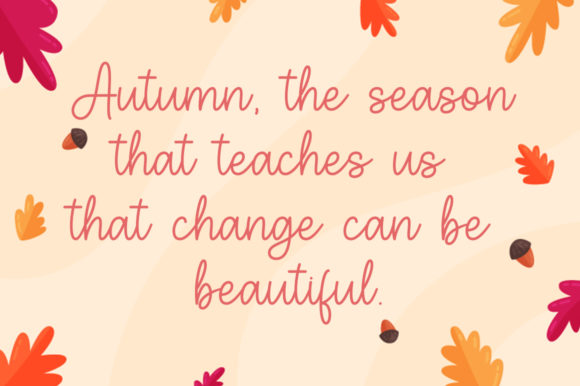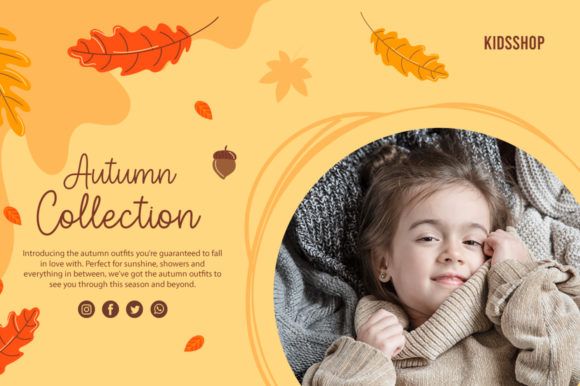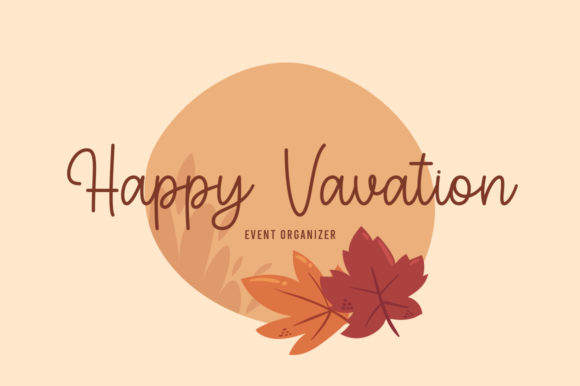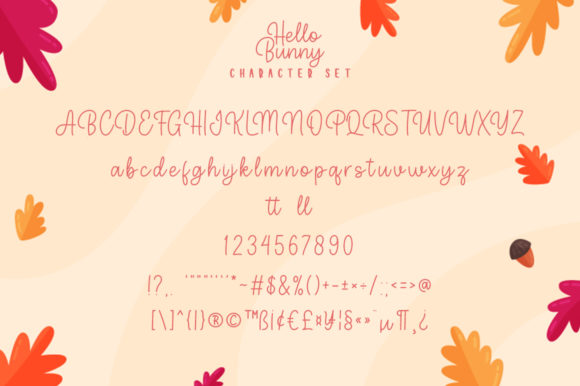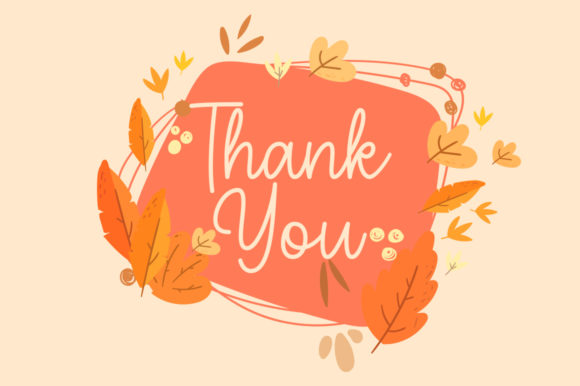
Hello Bunny Font: The Sweetest Handwritten Font for Your Creative Projects
Are you a designer, crafter, or DIY enthusiast looking for a font that can add a touch of sweetness and elegance to your projects? Look no further than the Hello Bunny font! This beautiful handwritten font is designed to capture the hearts of creatives and take their work to the next level. In this article, we’ll dive into the world of Hello Bunny font, exploring its features, benefits, and uses.
A Classy Calligraphic Influence with a Modern Twist
Hello Bunny is a masterfully designed font that combines the best of calligraphic influences with a contemporary and fresh feel. Its sweet, handwritten style makes it perfect for a wide range of creative projects, from greeting cards and invitations to branding and packaging. The font’s classy and elegant vibe ensures that it will add a touch of sophistication to any design, while its modern twist keeps it feeling fresh and current.
Key Features of Hello Bunny Font
• Handwritten style: Hello Bunny is a beautiful, handwritten font that adds a personal touch to any project.
• Classy calligraphic influences: The font’s calligraphic roots give it an elegant and sophisticated feel.
• Contemporary and fresh: Hello Bunny’s modern twist ensures that it feels current and on-trend.
• Versatile: This font is perfect for a wide range of creative projects, from digital designs to print materials.
Why Fall in Love with Hello Bunny Font?
So, why should you fall in love with Hello Bunny font? Here are just a few reasons:
• Easy to read: Despite its elegant and cursive style, Hello Bunny font is surprisingly easy to read, making it perfect for body text and headlines.
• Highly versatile: This font can be used for a wide range of projects, from feminine and playful designs to more formal and elegant ones.
• Unique and distinctive: Hello Bunny font has a unique and distinctive style that will set your designs apart from the crowd.
Using Hello Bunny Font in Your Creative Projects
So, how can you use Hello Bunny font in your creative projects? Here are a few ideas to get you started:
• Greeting cards and invitations: Add a touch of elegance and sophistication to your greeting cards and invitations with Hello Bunny font.
• Branding and packaging: Use Hello Bunny font to create beautiful and eye-catching branding and packaging designs.
• Digital designs: Hello Bunny font is perfect for digital designs, including social media graphics, blog posts, and website headers.
• Crafting and DIY projects: Add a personal touch to your crafting and DIY projects, such as handmade cards, gift tags, and journal pages.
Tips and Tricks for Getting the Most Out of Hello Bunny Font
Here are a few tips and tricks for getting the most out of Hello Bunny font:
• Experiment with different colors and textures: Hello Bunny font looks beautiful in a range of colors and textures, so don’t be afraid to experiment and find the perfect combination for your design.
• Pair it with other fonts: Hello Bunny font pairs beautifully with other fonts, so try combining it with a bold or sans-serif font for added contrast and interest.
• Use it consistently: To create a cohesive and professional look, use Hello Bunny font consistently throughout your design.
In conclusion, Hello Bunny font is a beautiful and versatile handwritten font that is perfect for a wide range of creative projects. Its classy calligraphic influences, modern twist, and sweet style make it a true favorite among designers and crafters. Whether you’re looking to add a touch of elegance to your greeting cards and invitations or create beautiful branding and packaging designs, Hello Bunny font is the perfect choice. So why not fall in love with Hello Bunny font and take your creative projects to the highest levels?